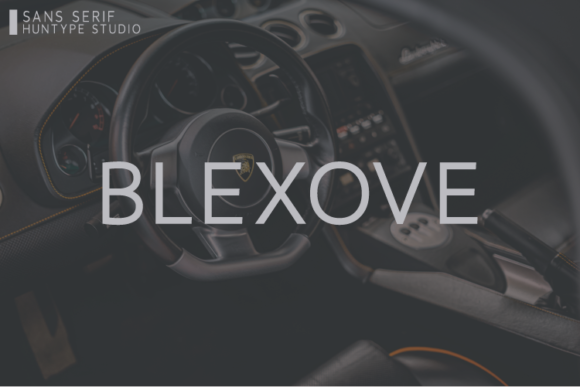
Introducing Blexove Font: The Epitome of Modern Elegance
Unleash the power of Blexove Font, a meticulously crafted sans serif typeface that effortlessly combines sophistication and modernity. Its clean lines and graceful curves exude an air of elegance that will elevate your designs to new heights.
Step into a world of endless possibilities with Blexove Font, the perfect choice for creating captivating resumes that stand out from the crowd. Whether you're seeking a timeless and professional look or a touch of contemporary flair, Blexove Font has you covered.
Experience the versatility of Blexove Font as it effortlessly enhances your branding, adds a touch of sophistication to your headings, and transforms wedding designs and invitations into enchanting works of art. Its versatility extends to signatures, logos, labels, and beyond, making it an indispensable tool for any designer.
Immerse yourself in the world of Blexove Font, where every character carries a story and every word becomes a masterpiece. Let your designs blossom with the timeless appeal of this exceptional font, crafted by the renowned Huntype Studio.